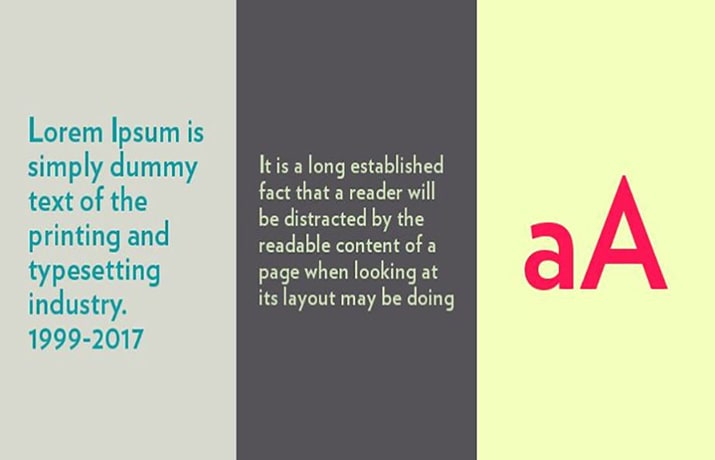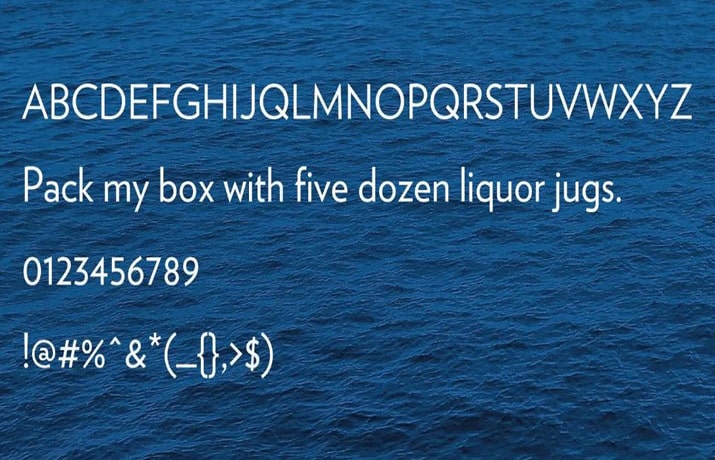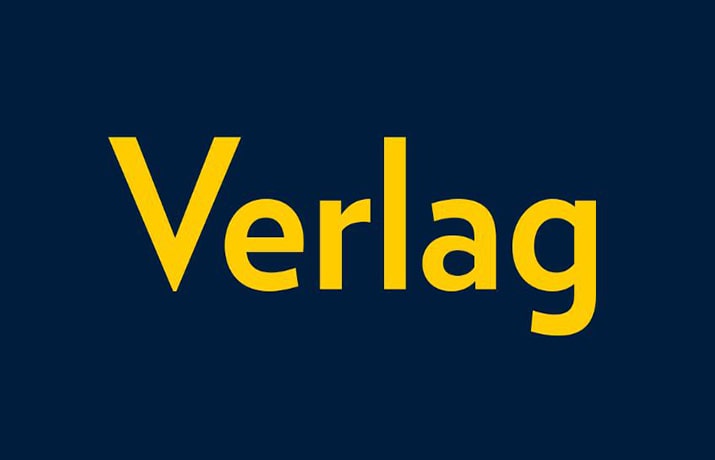
Here we are introducing an amazing font family called Verlag Font. It is an impressive display typeface that can be used in all kinds of designs. It was originally built for the Guggenheim Museum.
But later in 2006, Jonathan Hoeffler and Tobias Freer-Jones, two of the biggest names in the type design industry, took charge of its redesign.
We should look at the style of this typeface from a geometric perspective which makes this typeface very comparable to the other sans serif fonts.
So, it has everything that designers want in a type design. So, if you want to play the effect with fonts, Verlag font will be perfect for it.
| Font Name: | Verlag Font Family |
| Style: | Sans Serif, Display, Typeface |
| Font Designer: | Hoefler&Co |
This good looking typeface is a favorite for official use, logo design, titles and headlines, greeting and birthday cards, labels, product packaging as well as printing on fabric industries. Moreover, sans serif fonts are best used in headlines and banner ads.
This font family contains its own 8 weights and that also contains its specific widths. Along with all the basic features, it is a balanced, solid and reliable.
These font families mainly belong to geometric sans serif fonts and is now used in many places.